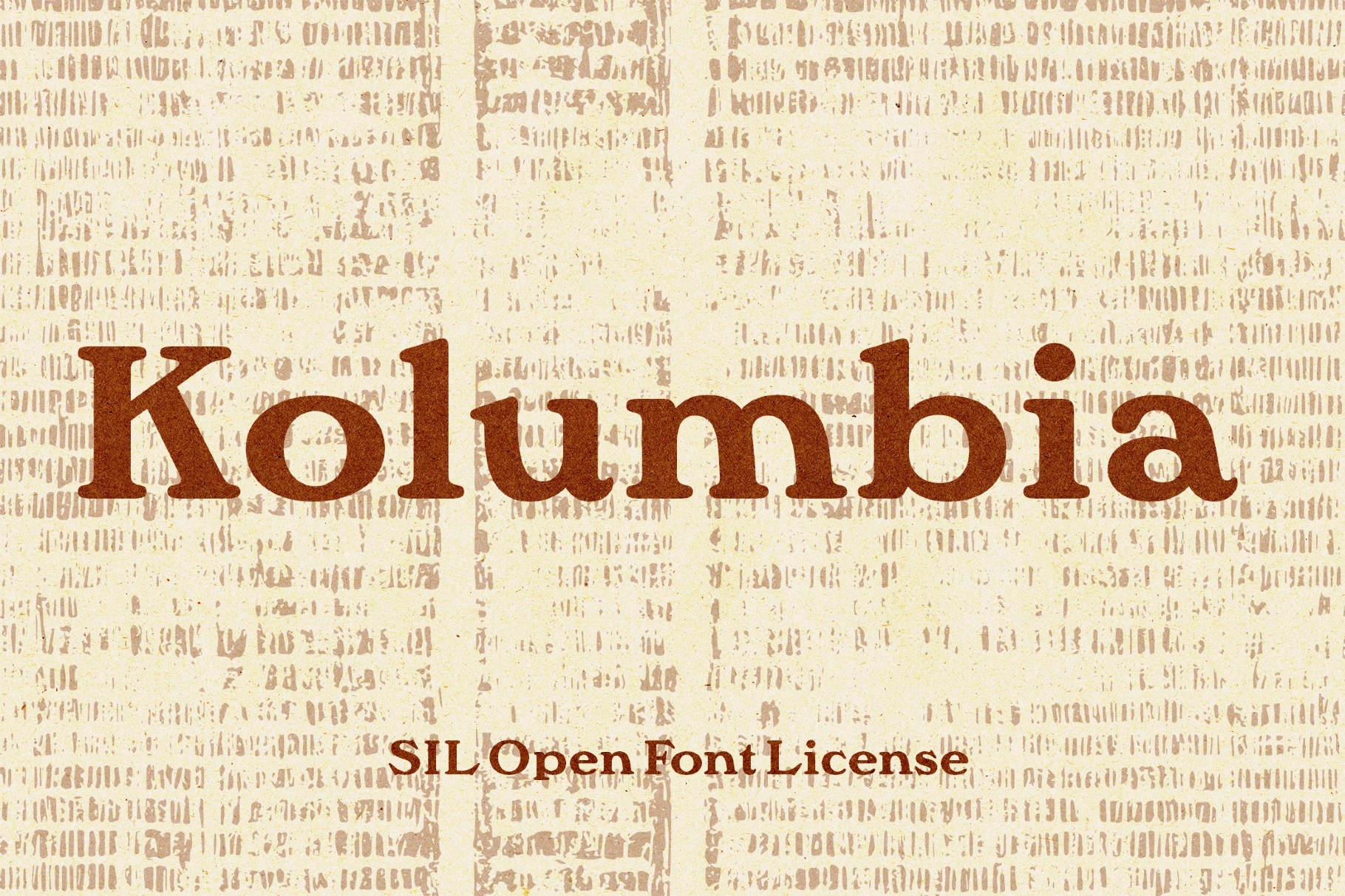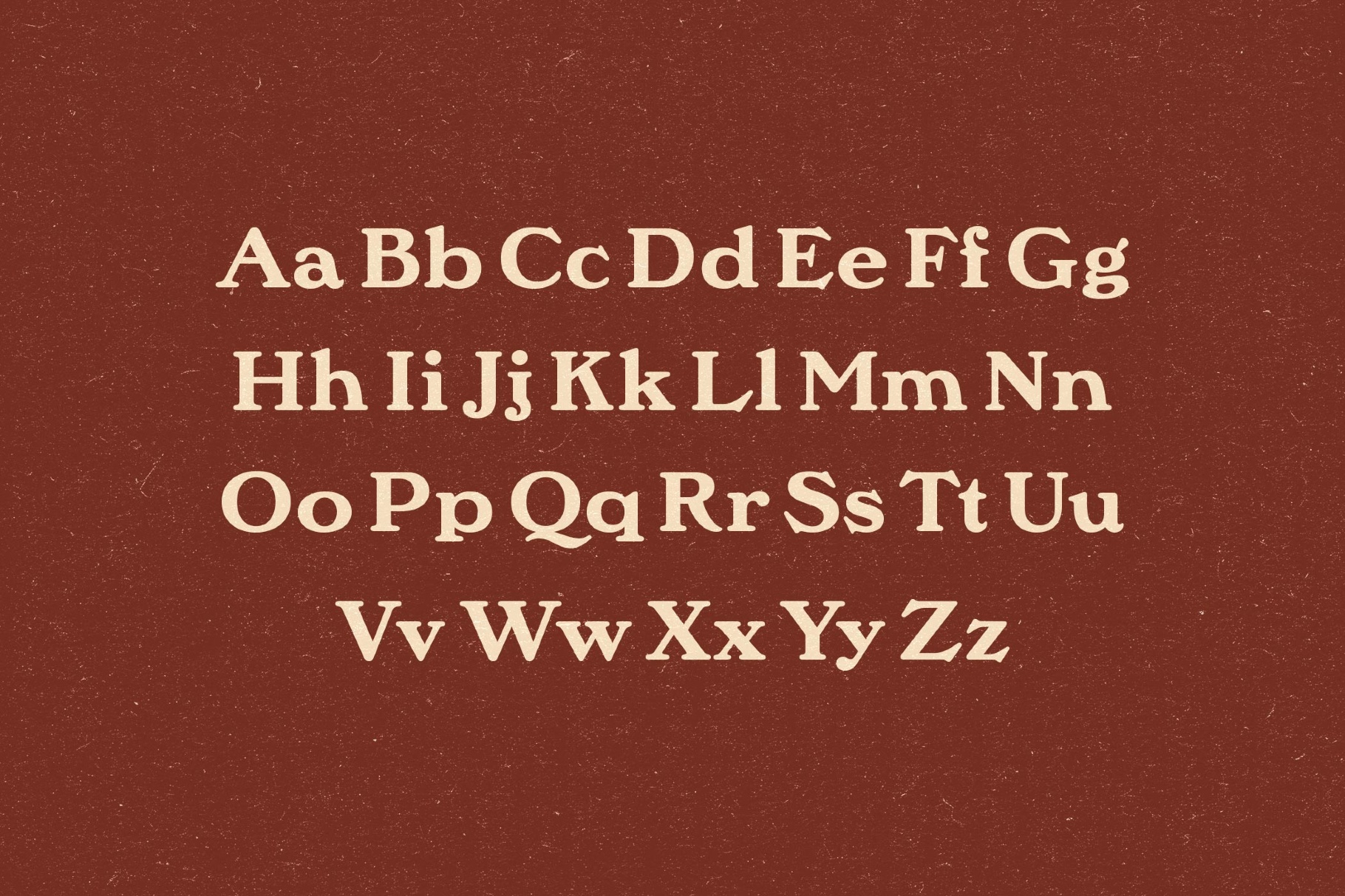
Kolumbia Font
Kolumbia is a serif title font shaped by early-20th-century American magazine lettering and the interwar Polish print tradition, with the stately flourish of periodicals, bookplates, and old publishing imprints. It's a summer-camp font for editorial headlines, book covers, cultural posters, heritage branding, packaging, exhibition graphics and short-form layouts.